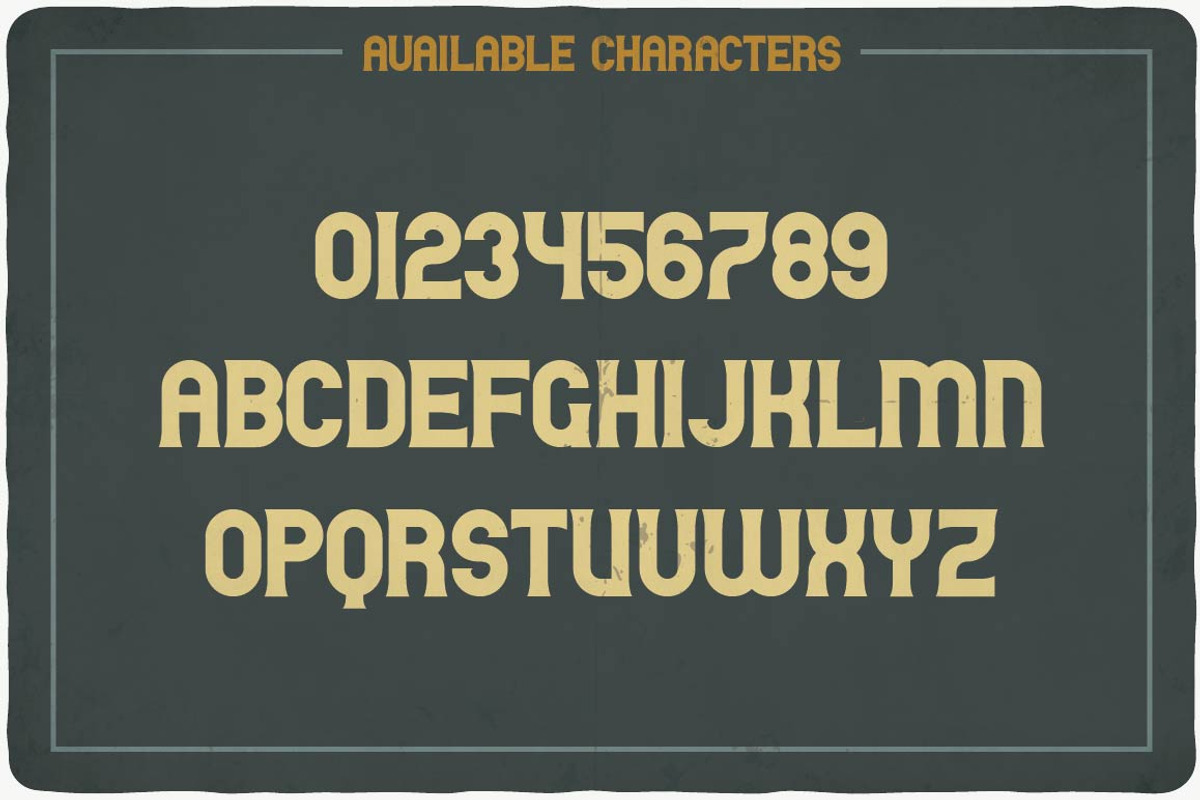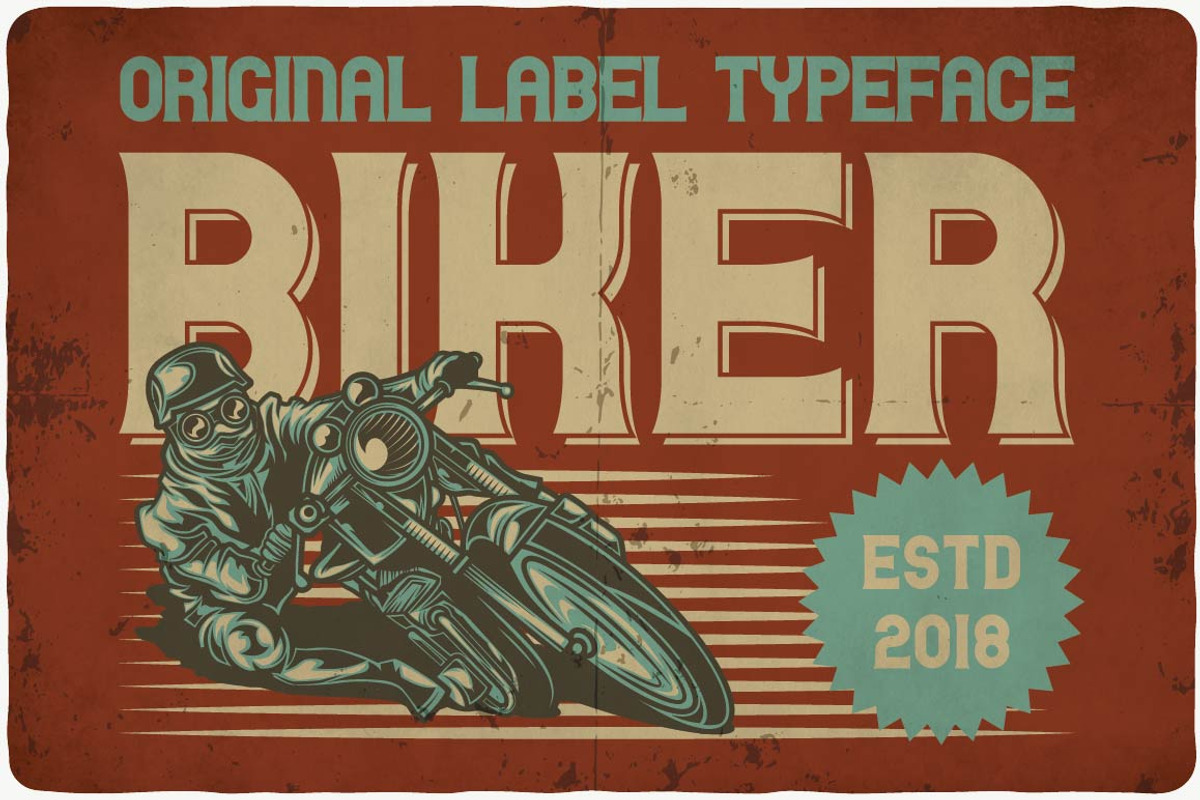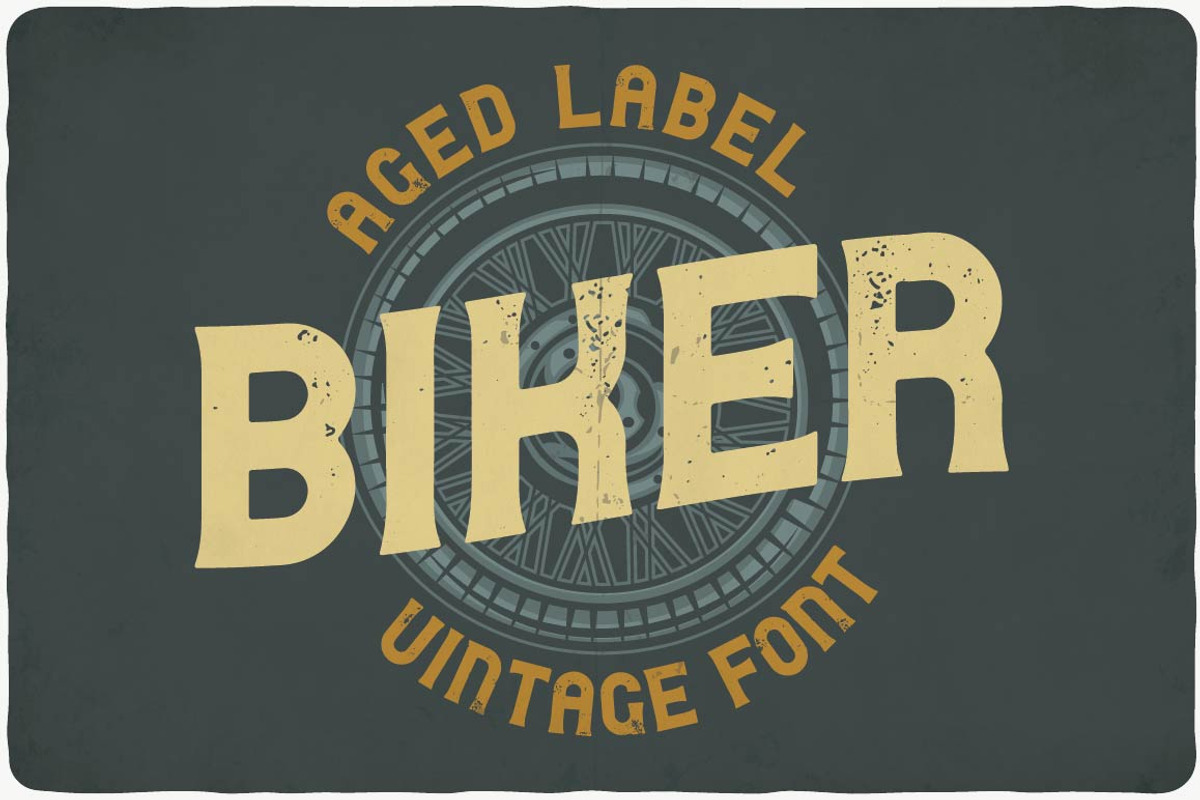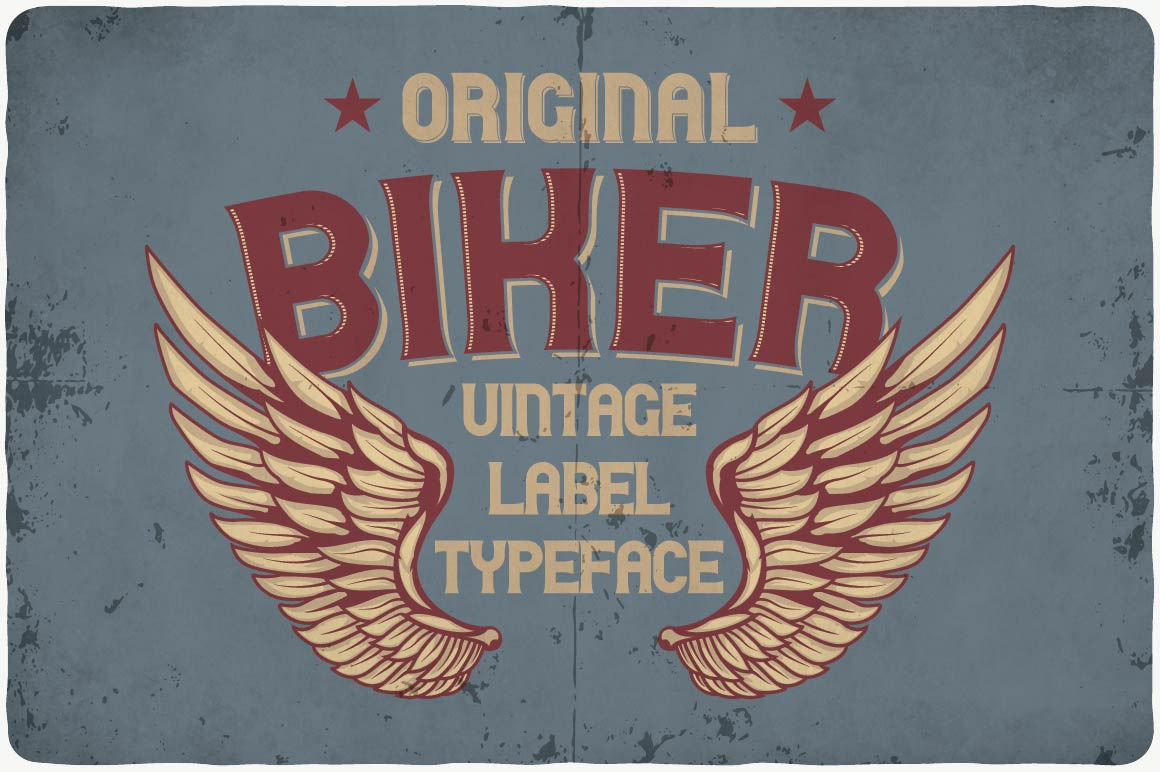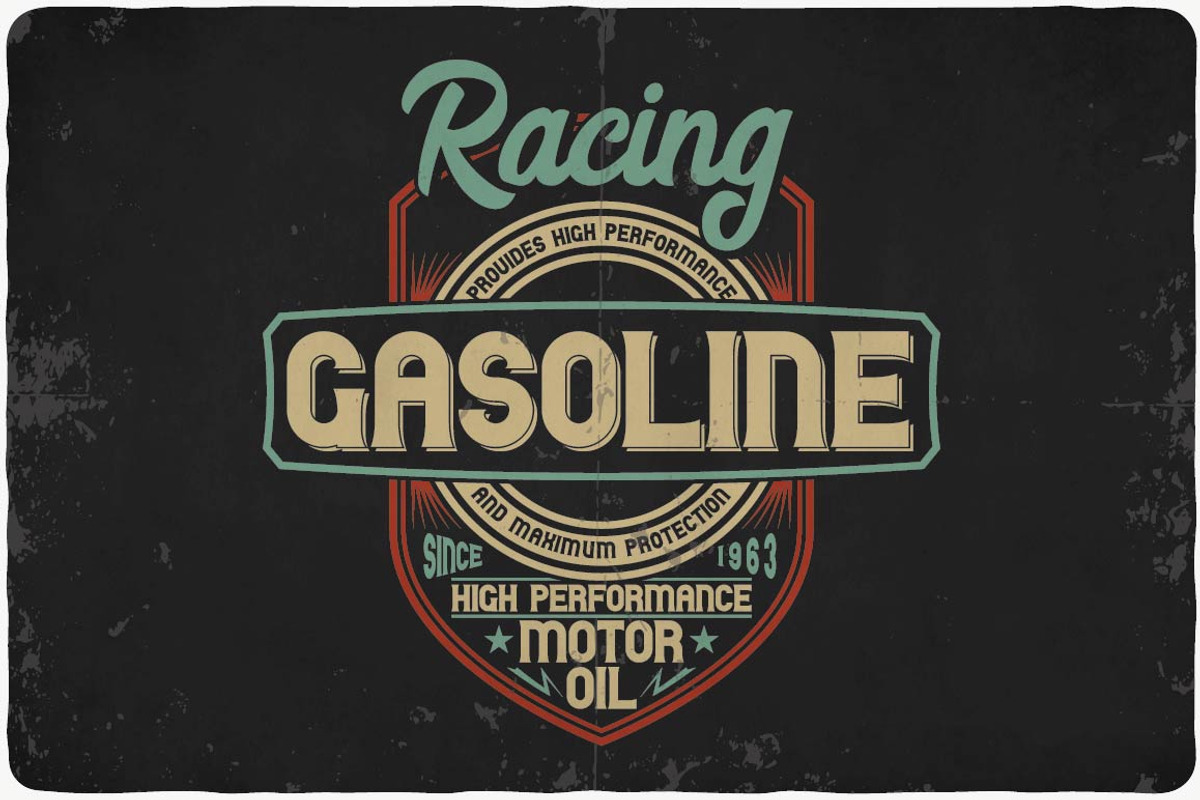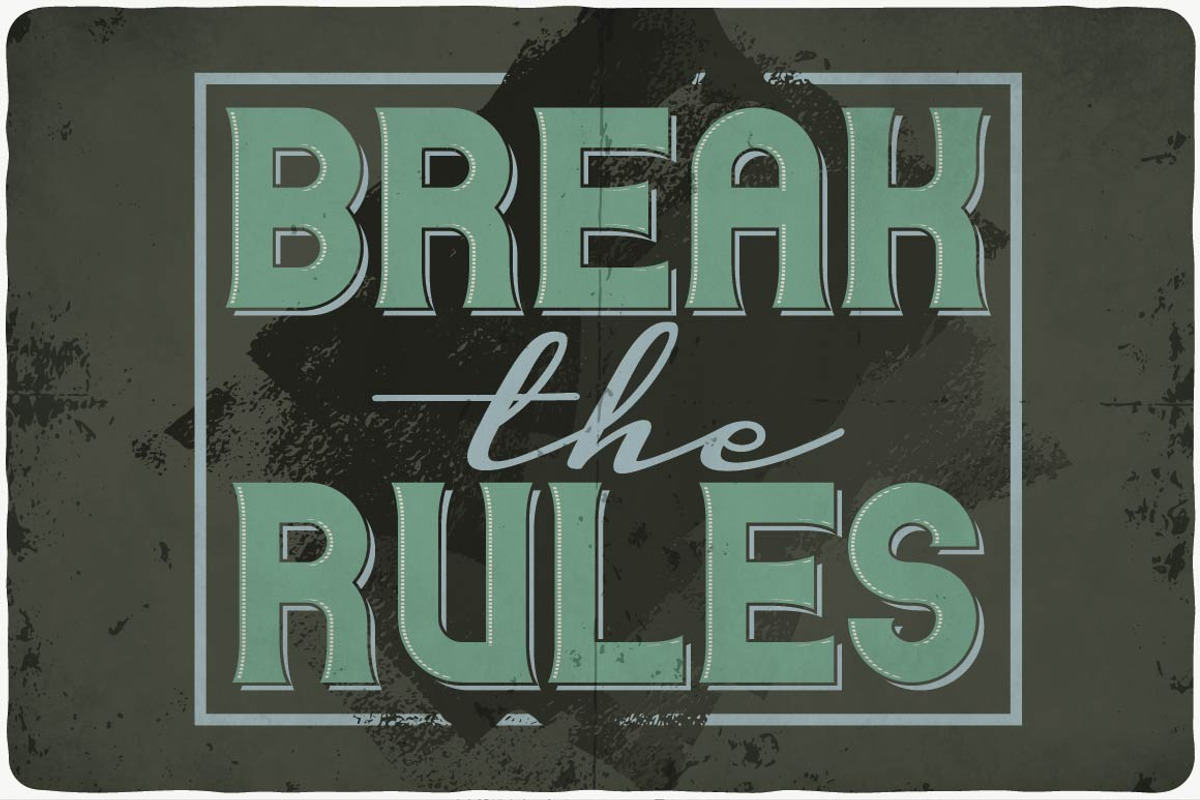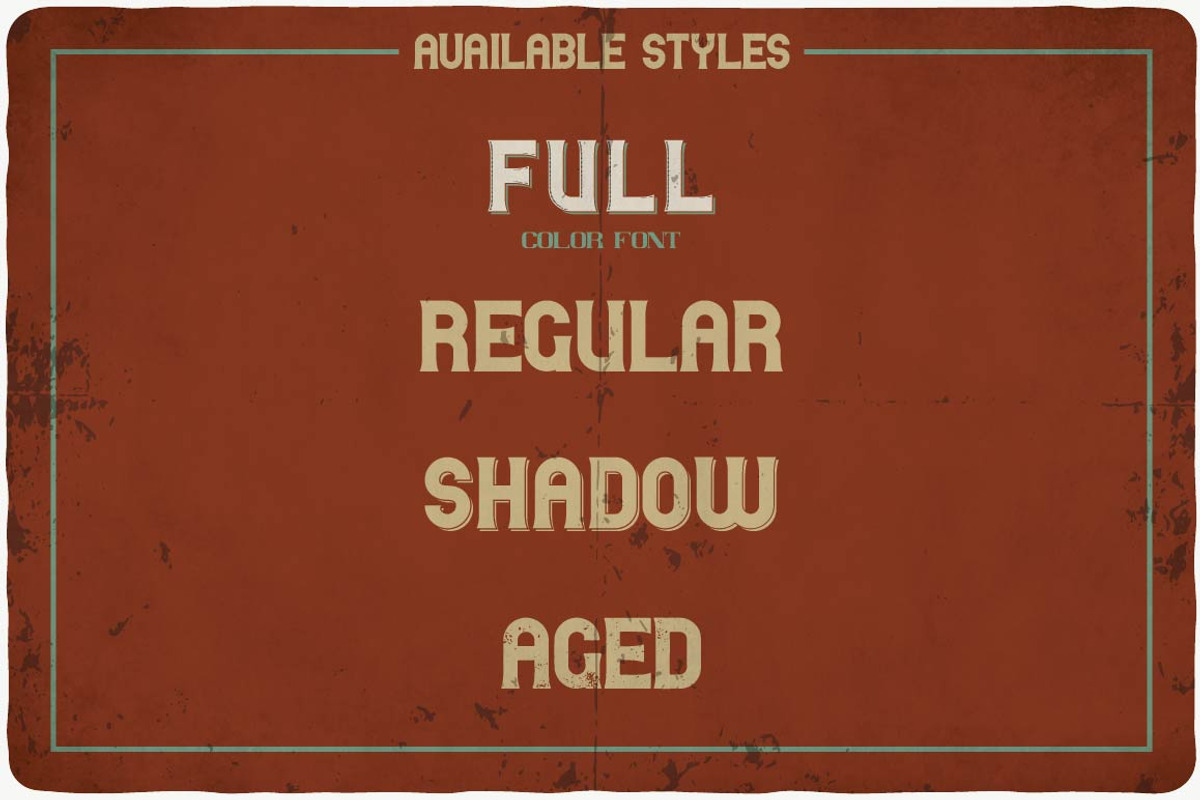
Biker typeface
Introducing a vintage look label typeface named "Biker". This typeface includes four styles, for sample look at 5th preview. Typeface will good viewed on any yours design.